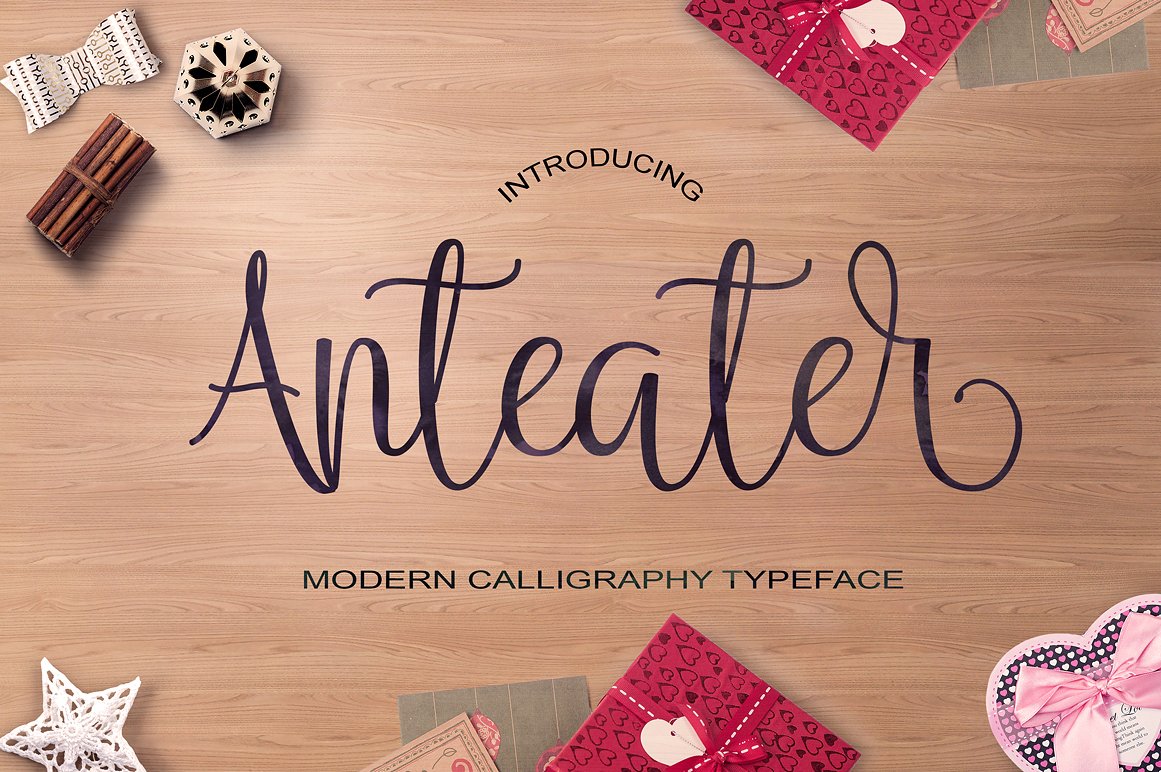
Anteater Script
Anteater Script Font
Anteater Modern Calligraphy. This font was designed by handwriting, and it has a modern and unique forms of calligraphy, the writing style is very natural. Anteater has a very unique style of calligraphy, it is very suitable for use in the work of modern design.